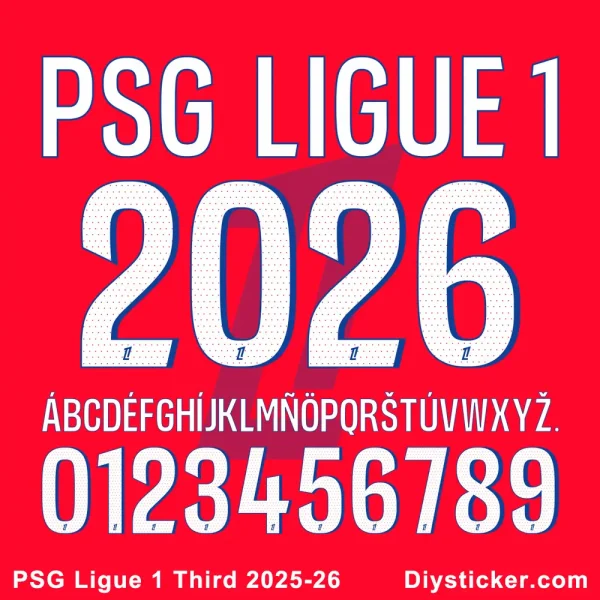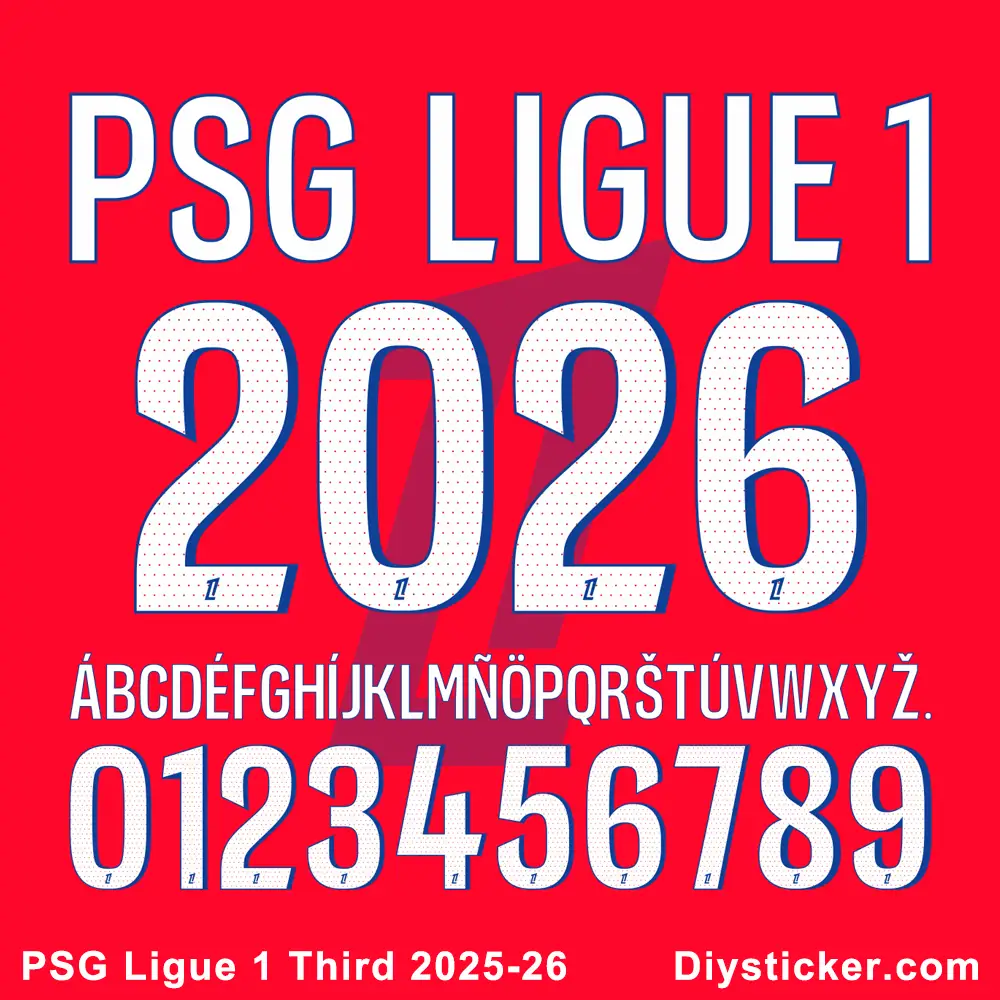
PSG Third 2025-26 Font Downloads
Own the official typeface of the Paris Saint-Germain 2025-26 Third Kit. This sleek and modern font, used for player names and numbers on the iconic jersey, is now available for your creative projects.